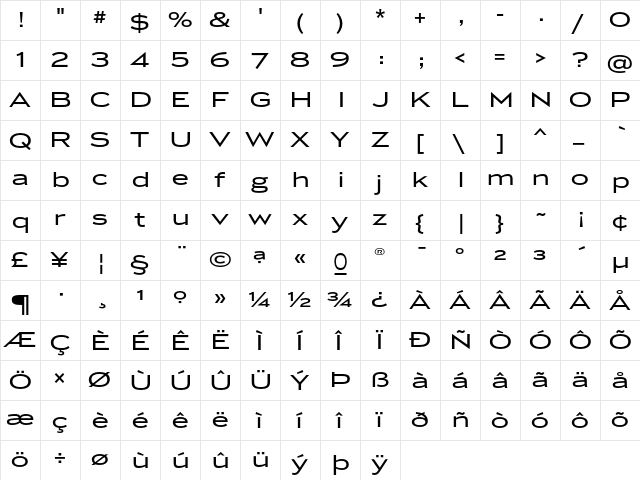
Luxury Gold
| Foundry | House Industries |
| Designer | Christian Schwartz & Dino Sanchez |
Design Context for Luxury Typeface
Luxury offers clean, dependable letterforms without strong stylistic allegiance, making it a practical choice for designers who need flexibility.
Pro Tip: Use Luxury in both headline and body roles to test its range before committing to a single application.